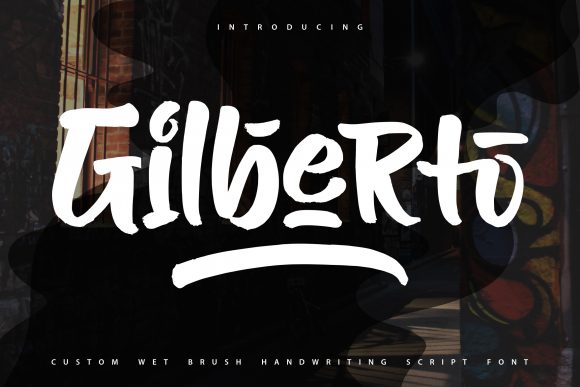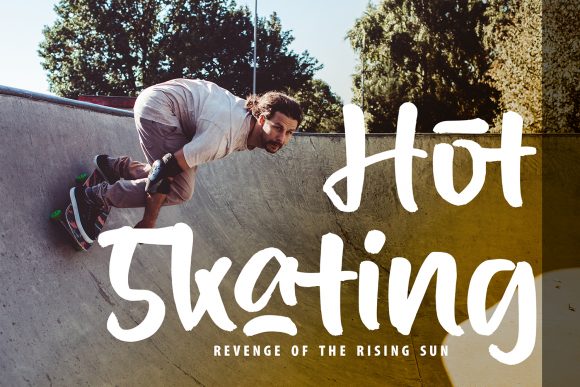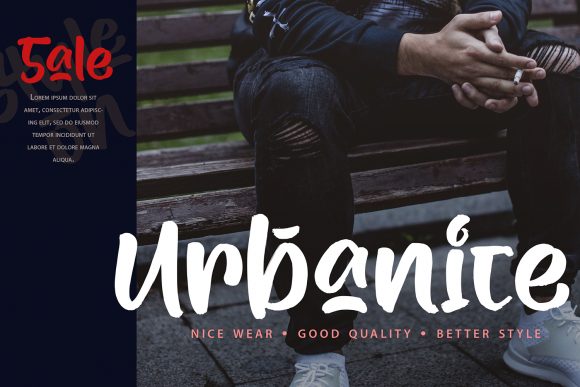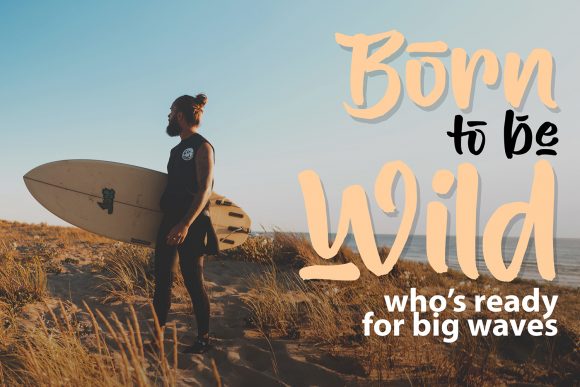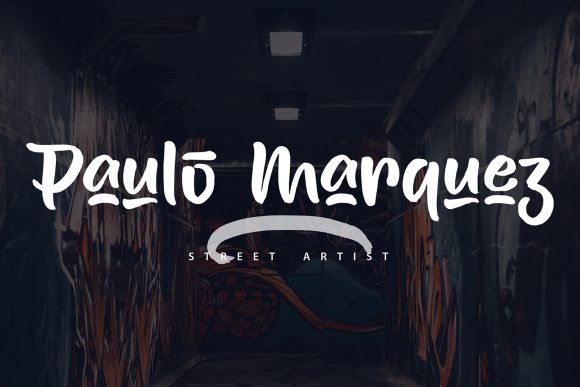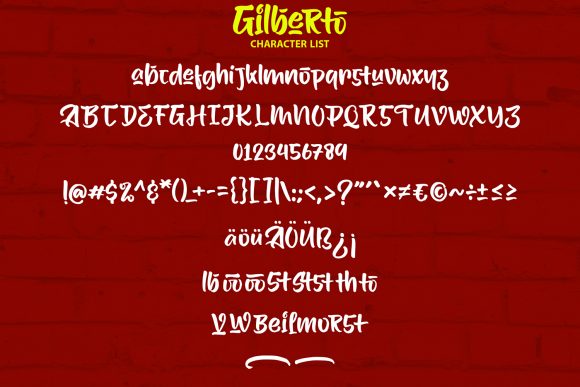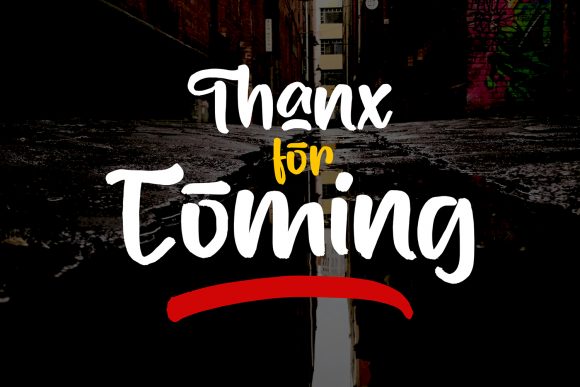
Gilberto Font
About Gilberto Font
Gilberto is a unique and interesting handwritten font. A little bit quirky, this font is a great choice for a wide variety of contexts!